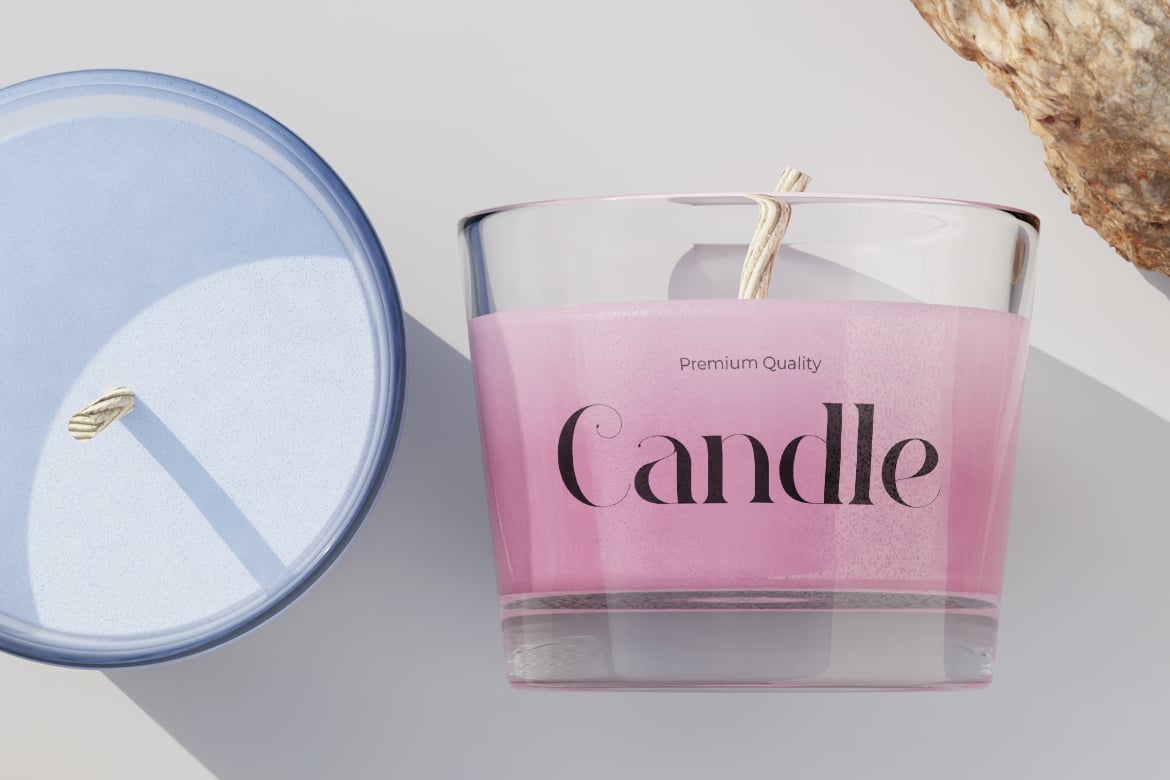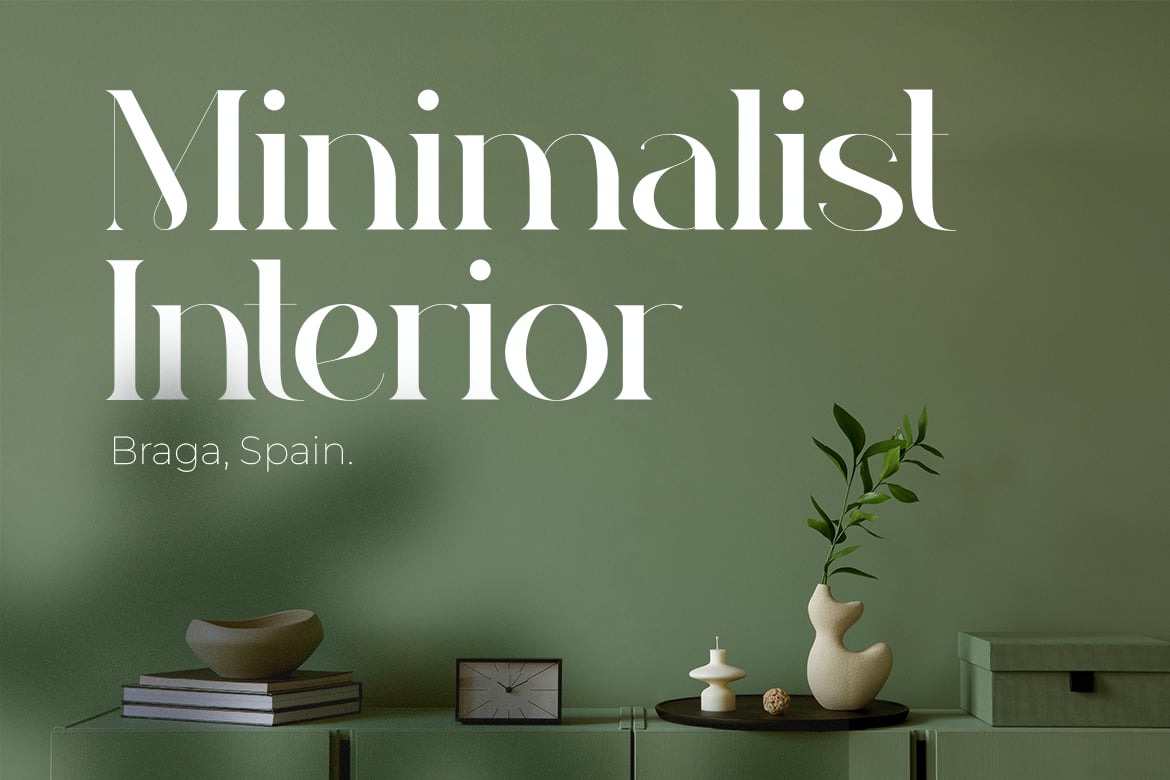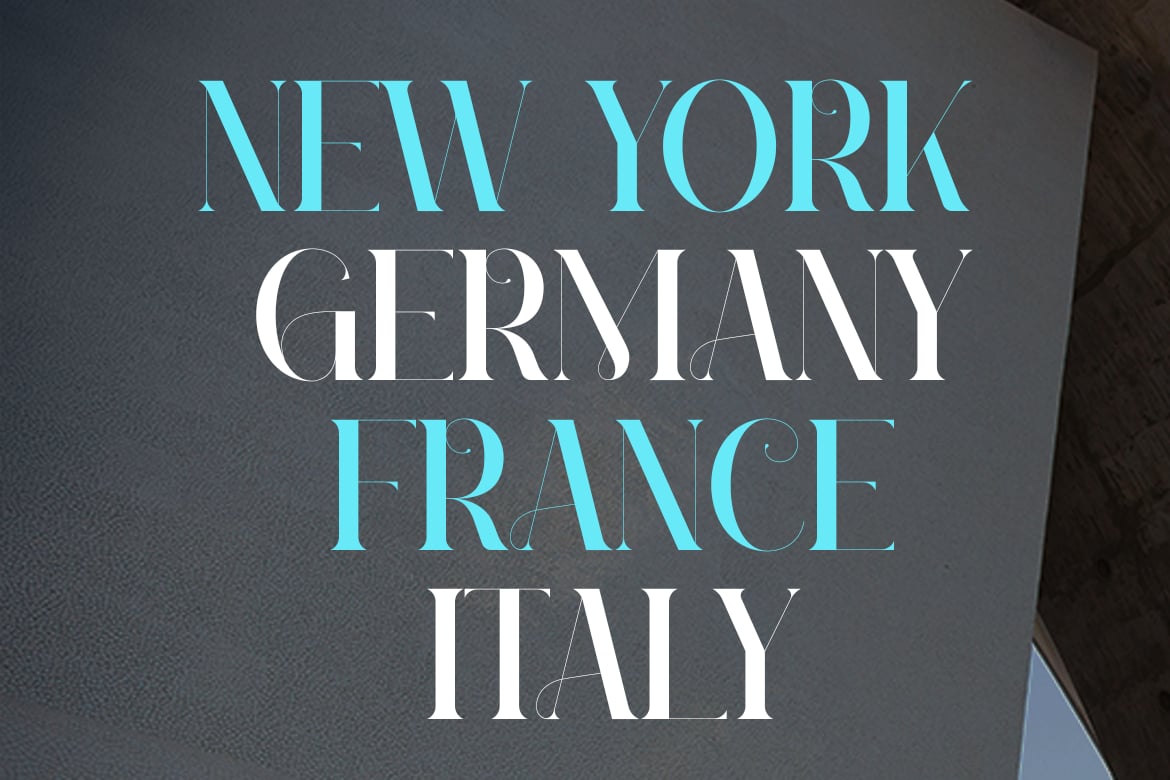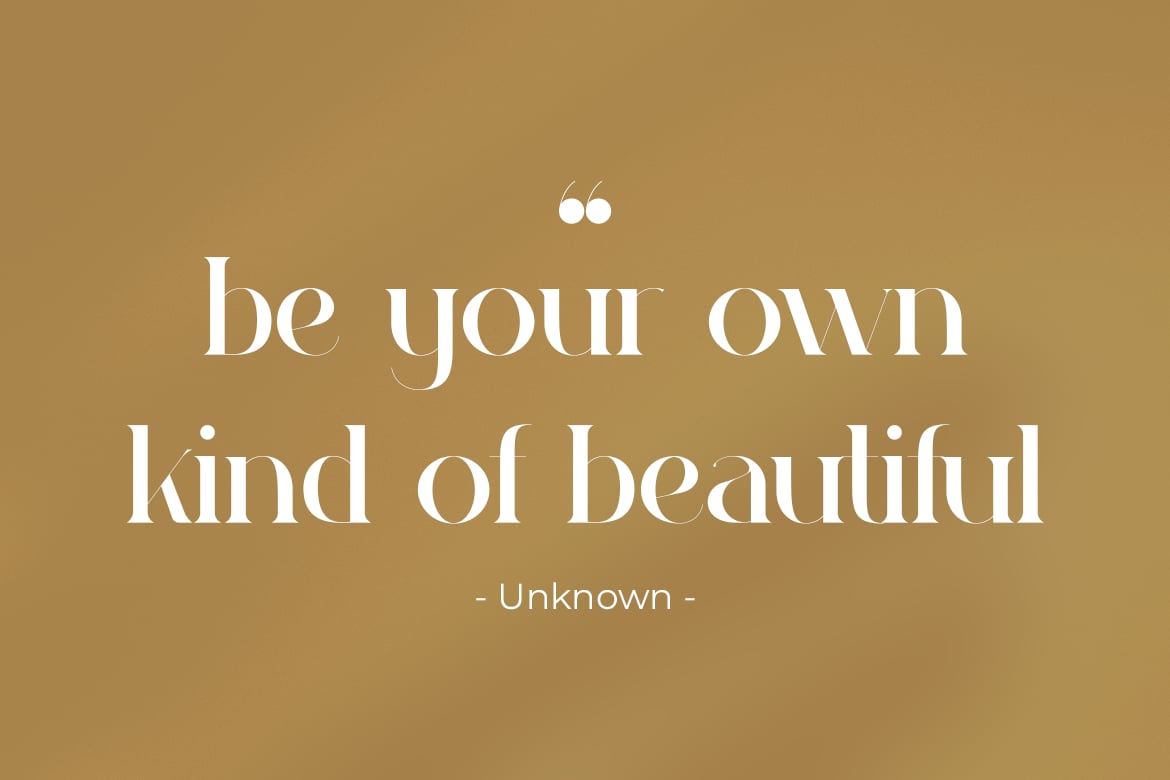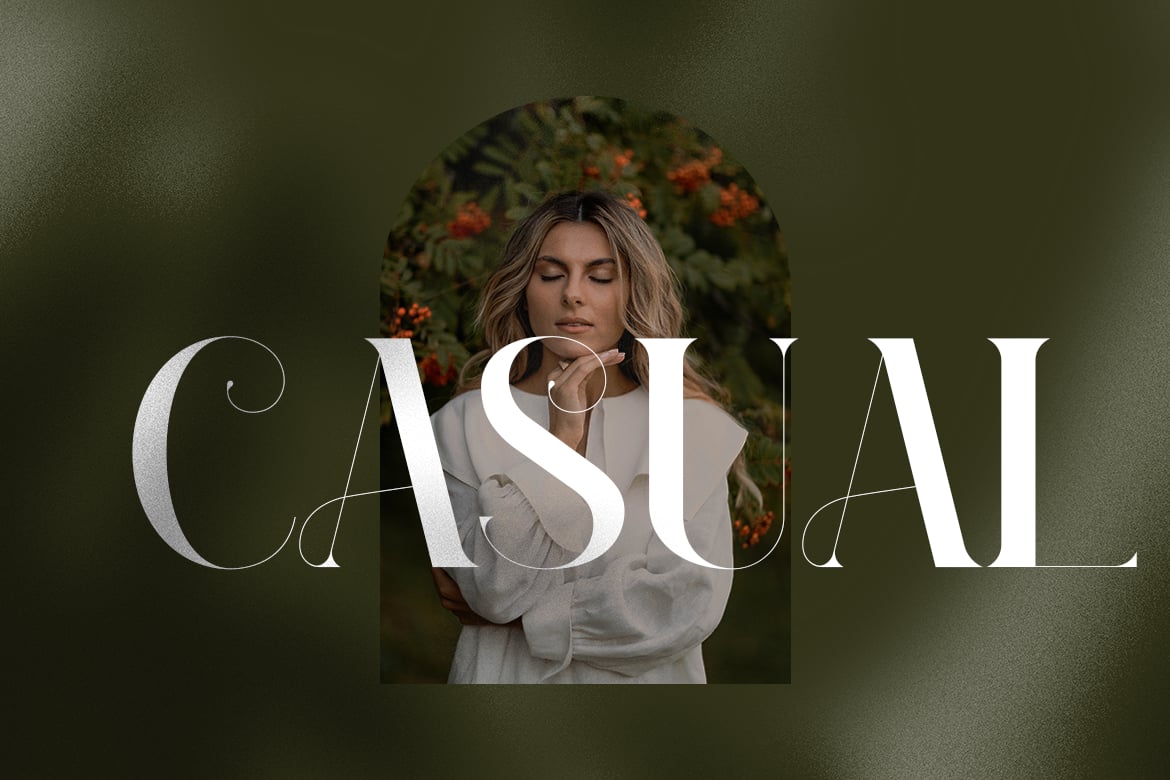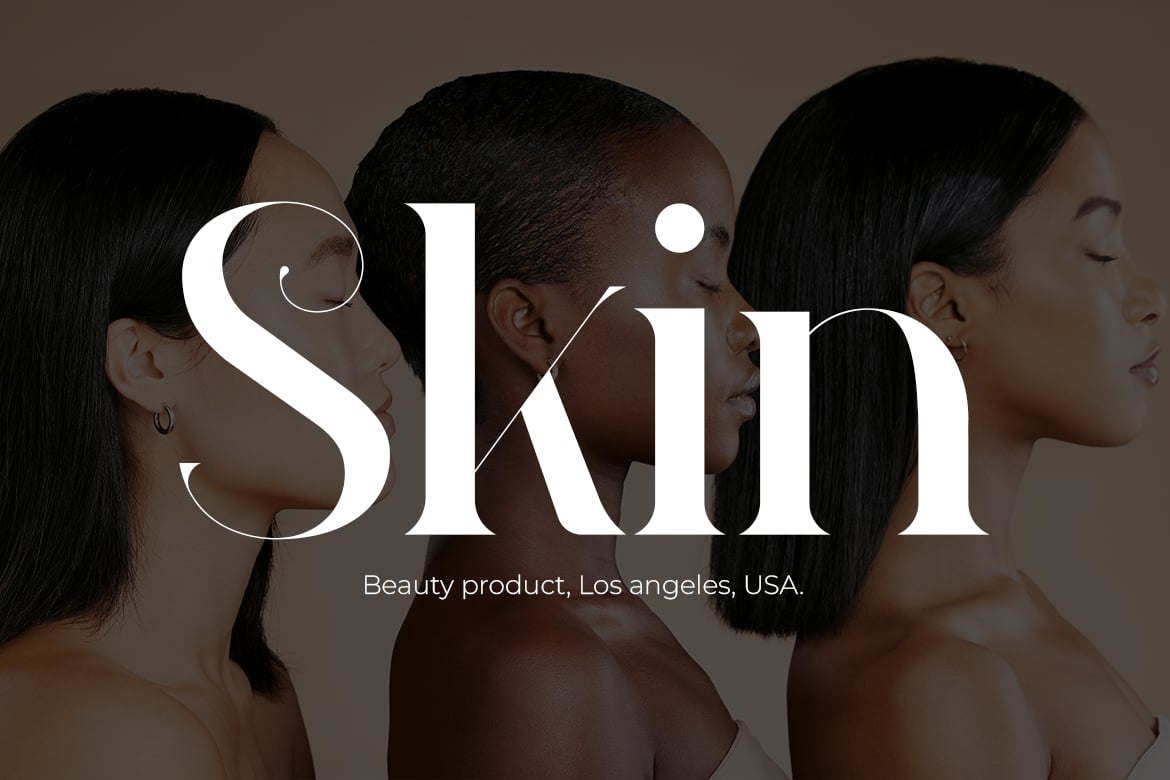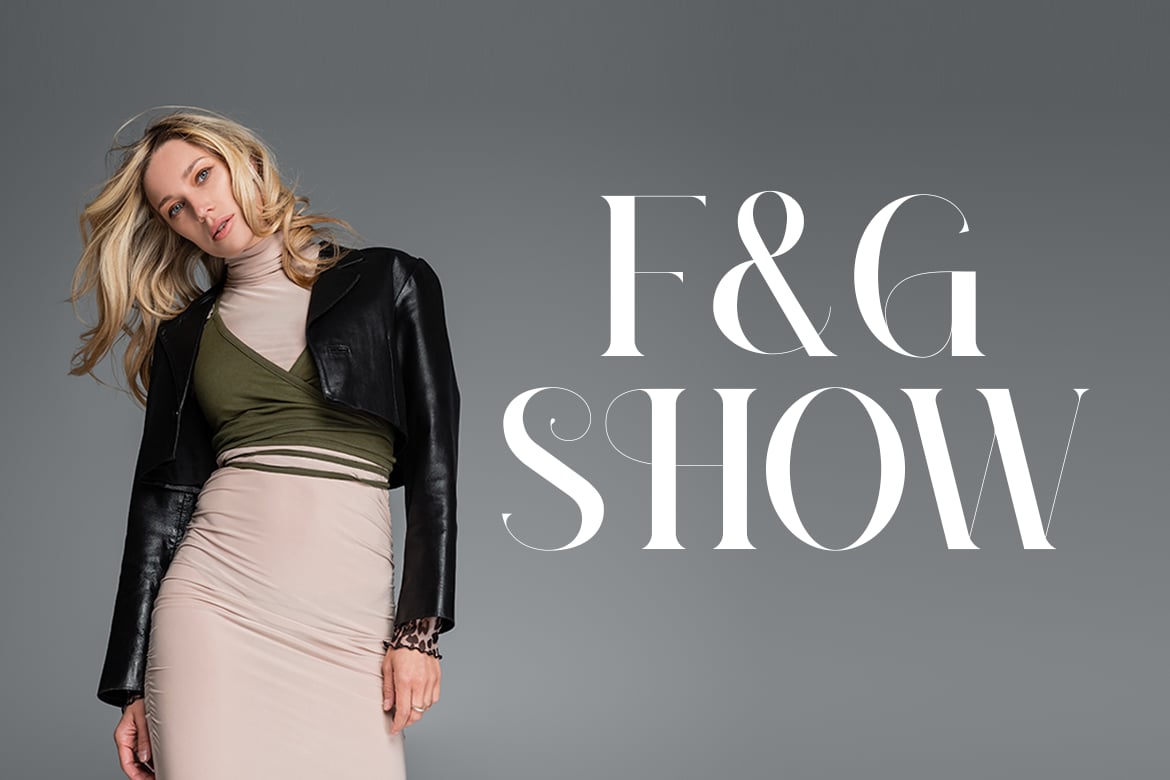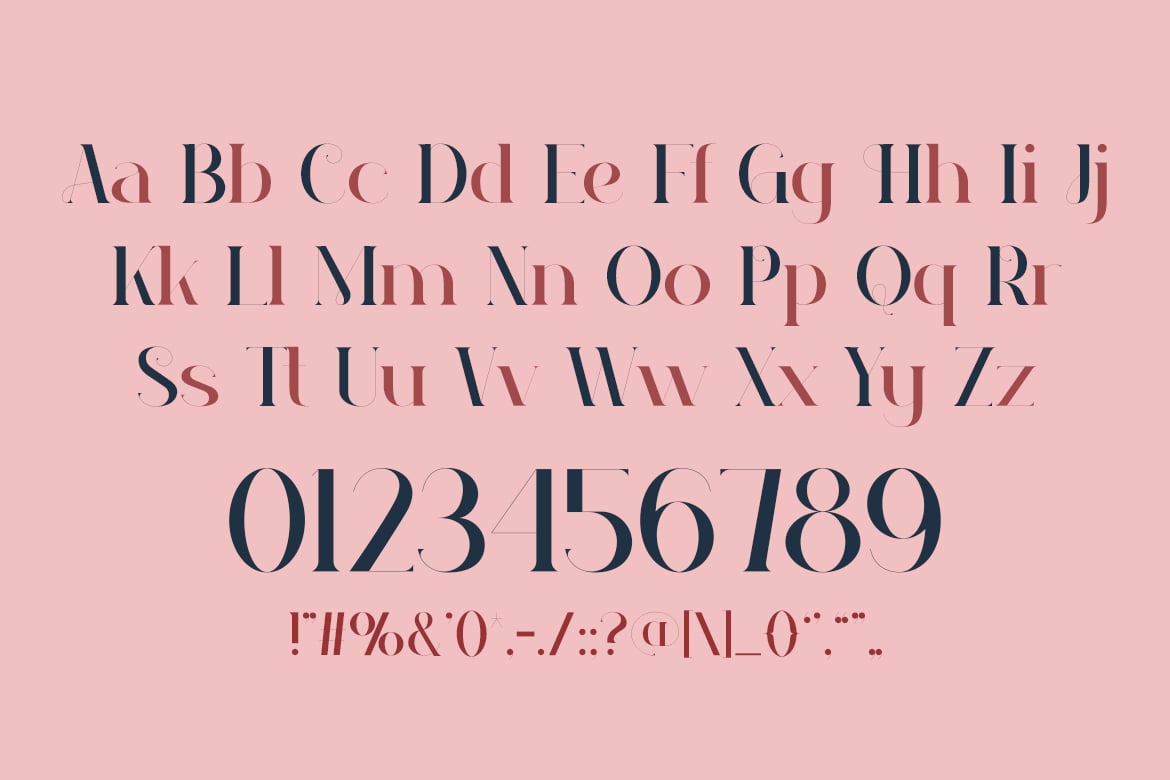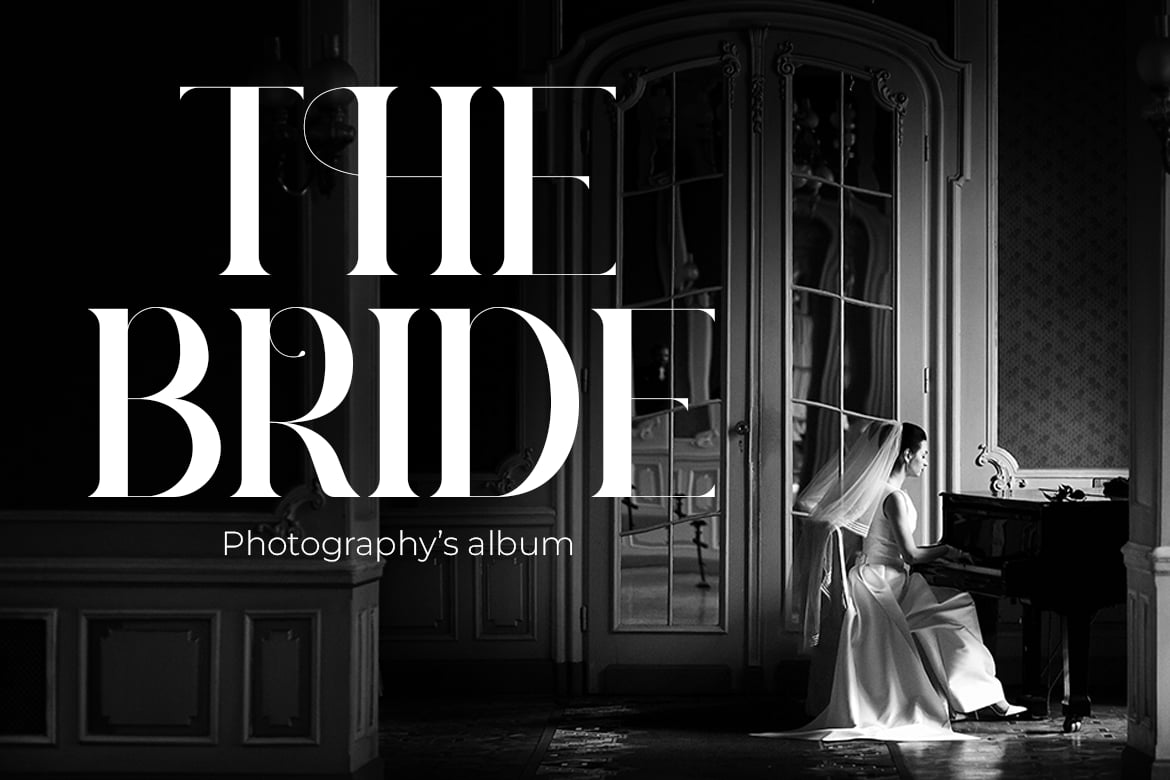
Shania – Elegance Modern Font
Shania, a sophisticated serif font, is an ideal choice for fashion, logos, quotes, invitations, posters, greeting cards, packaging, branding, wedding quotes, cover albums, business cards, postcards, and more.